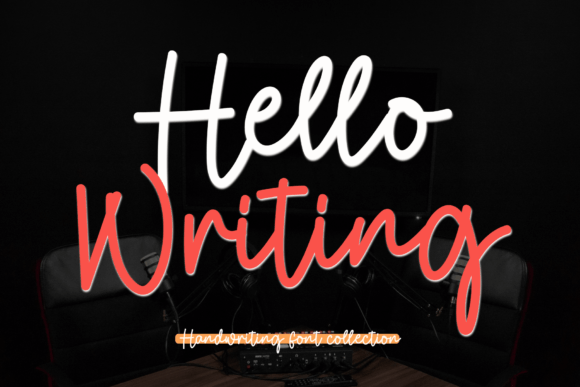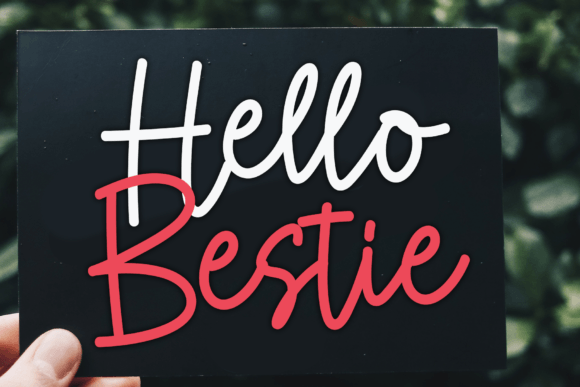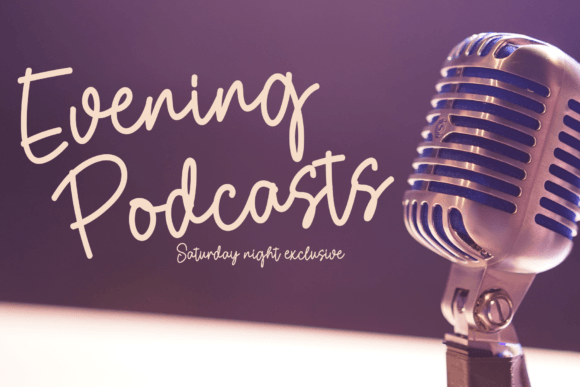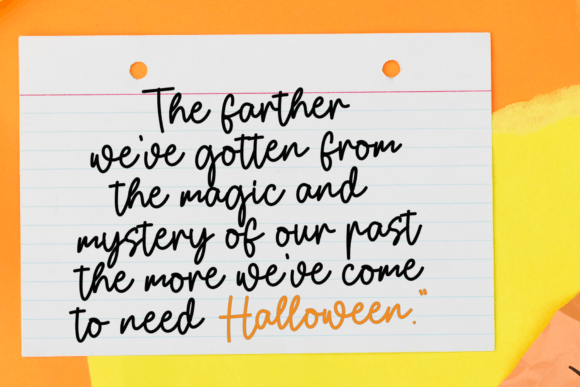
Hello Writing Font
About the Hello Writing Font
Presenting Hello Writing Font, a unique and stylish typeface that will make your work stand out. Hello Writing is a stylish handwritten font with a contemporary atmosphere and impeccable form, inspired by a timeless classic calligraphy. Balanced and varied, this font was designed to enhance the beauty of your projects.
Hello Writing Font excels in applications requiring a touch of elegant informality. It’s ideal for short headlines, logos, and branding elements where its stylish handwritten feel adds a personal touch without sacrificing readability. Consider it for invitations, greeting cards, or packaging designs for products targeting a sophisticated yet approachable audience. However, its delicate nature makes it unsuitable for body text or UI elements, where legibility over long stretches is paramount.
Pairing Hello Writing with a clean sans-serif like Montserrat or Lato for body copy creates a balanced and professional aesthetic. For a more playful feel, consider pairing it with a geometric sans-serif such as Futura. Alternatively, a classic serif font such as Garamond can provide a touch of traditional elegance to complement its contemporary handwritten style.
The overall personality of Hello Writing is sophisticated yet approachable, conveying a sense of both style and approachability. Its balanced forms prevent it from appearing overly whimsical or overly formal, making it a versatile choice for a range of projects.
Hello Writing Font Usage Examples
Hello Writing Font Example